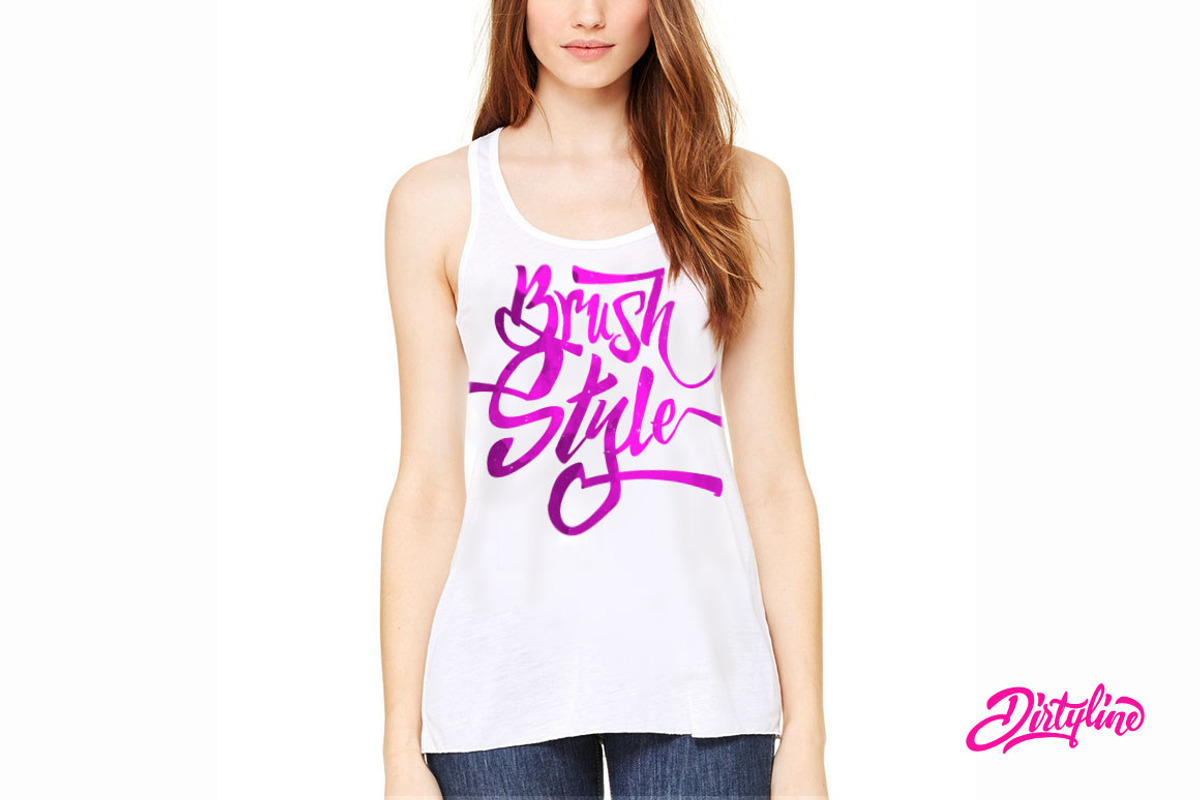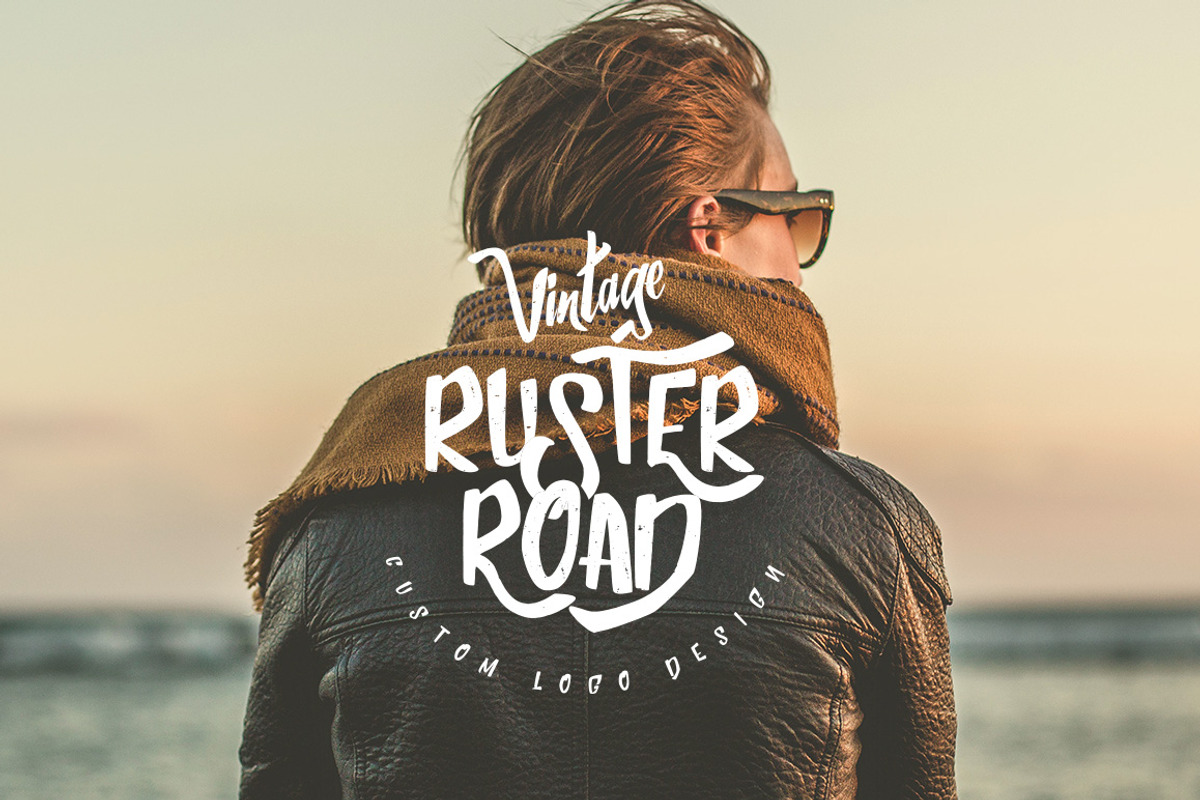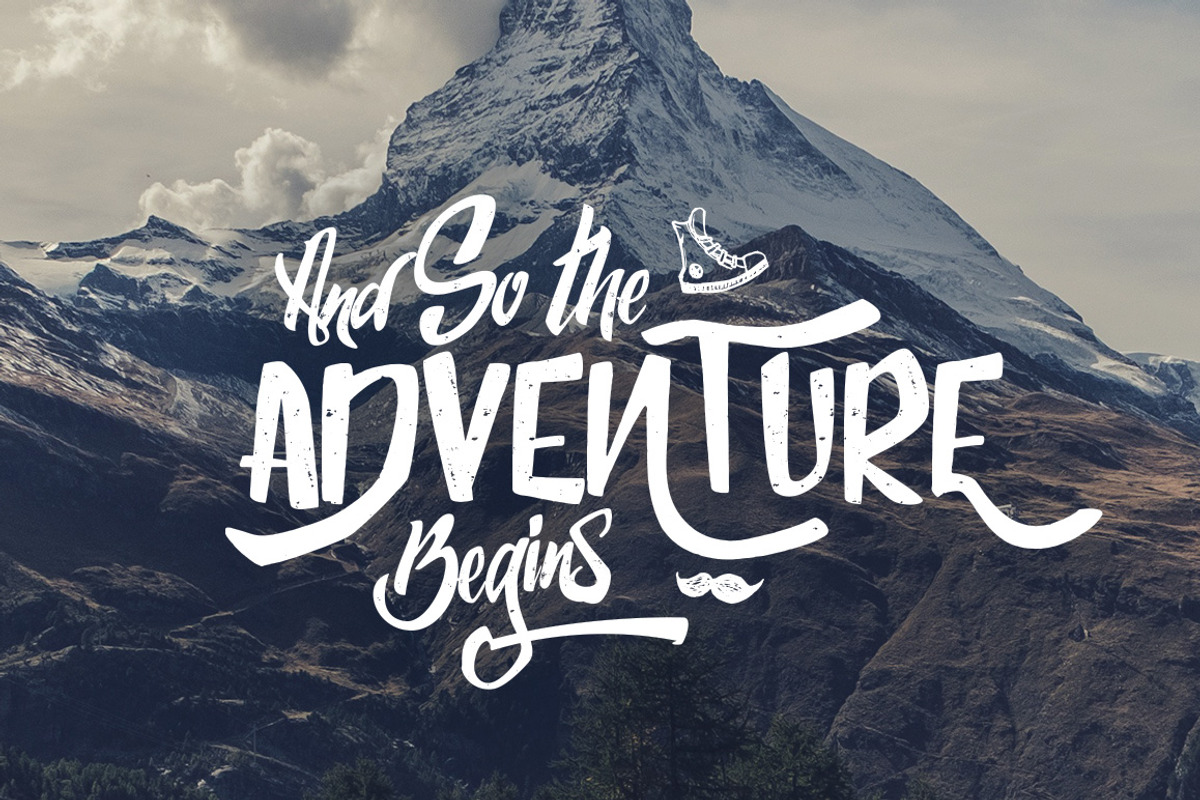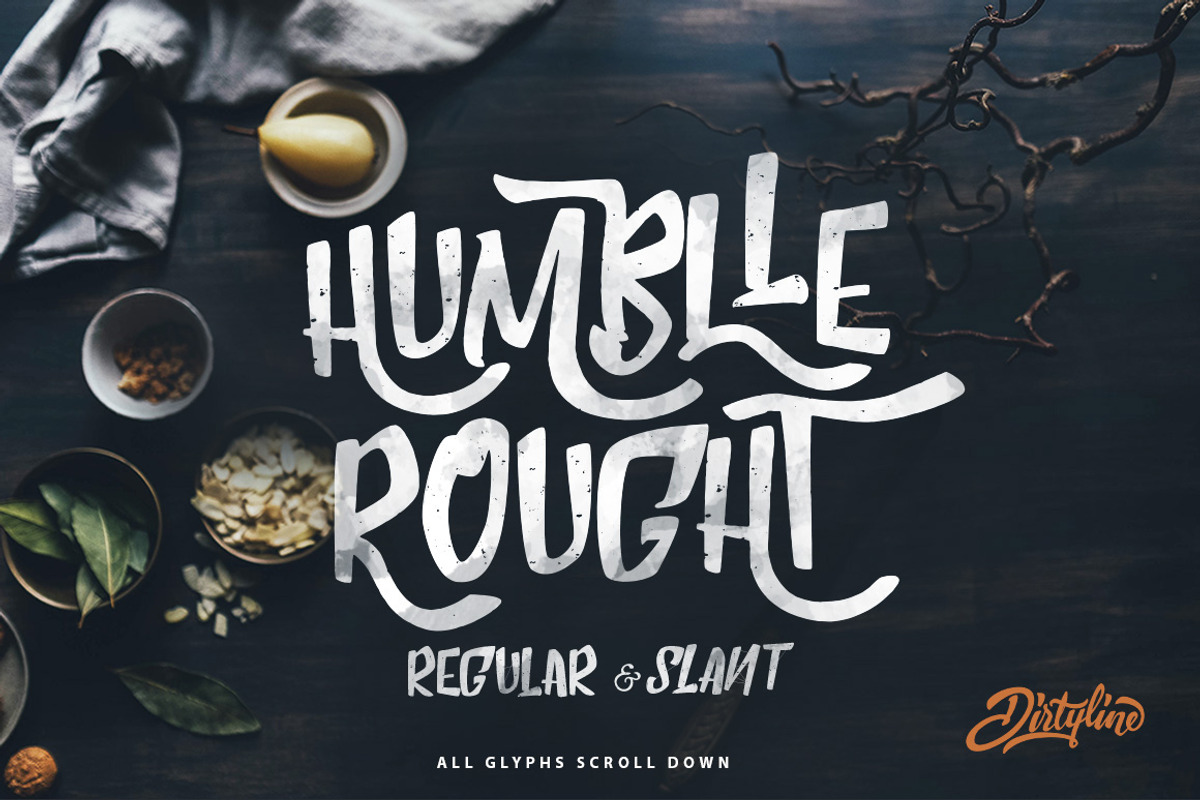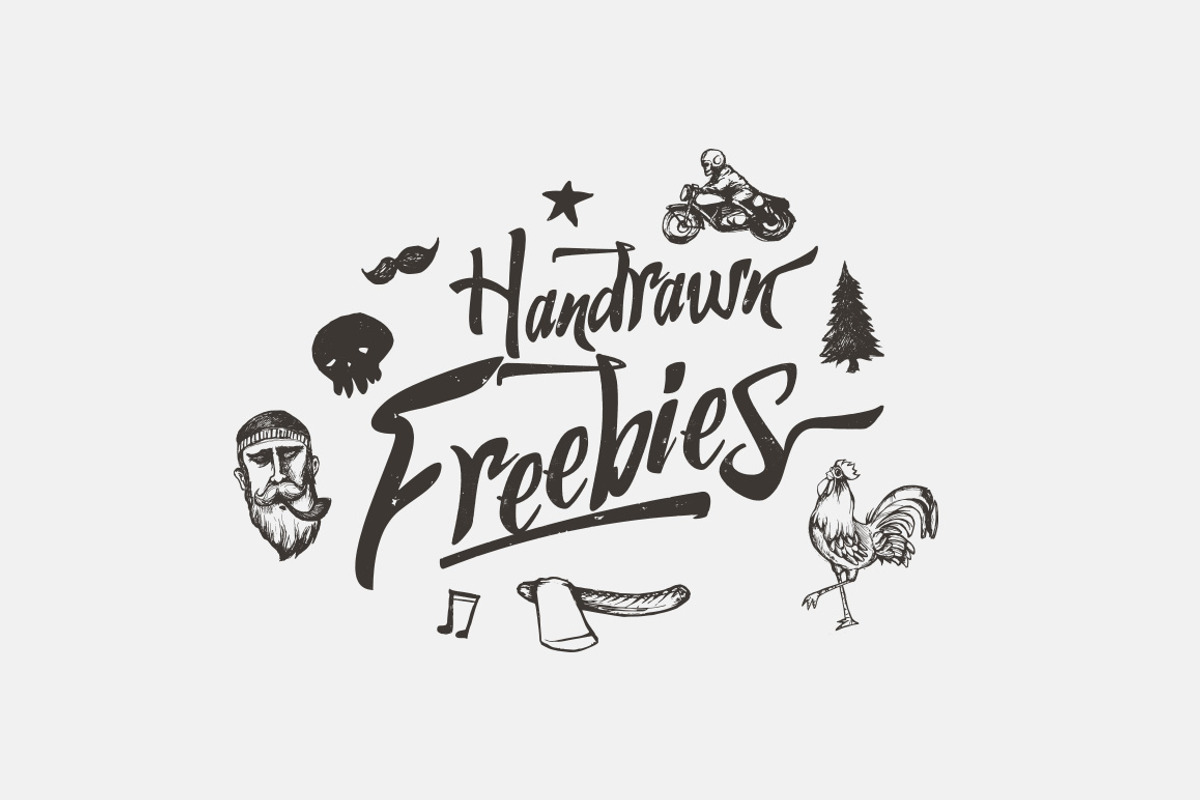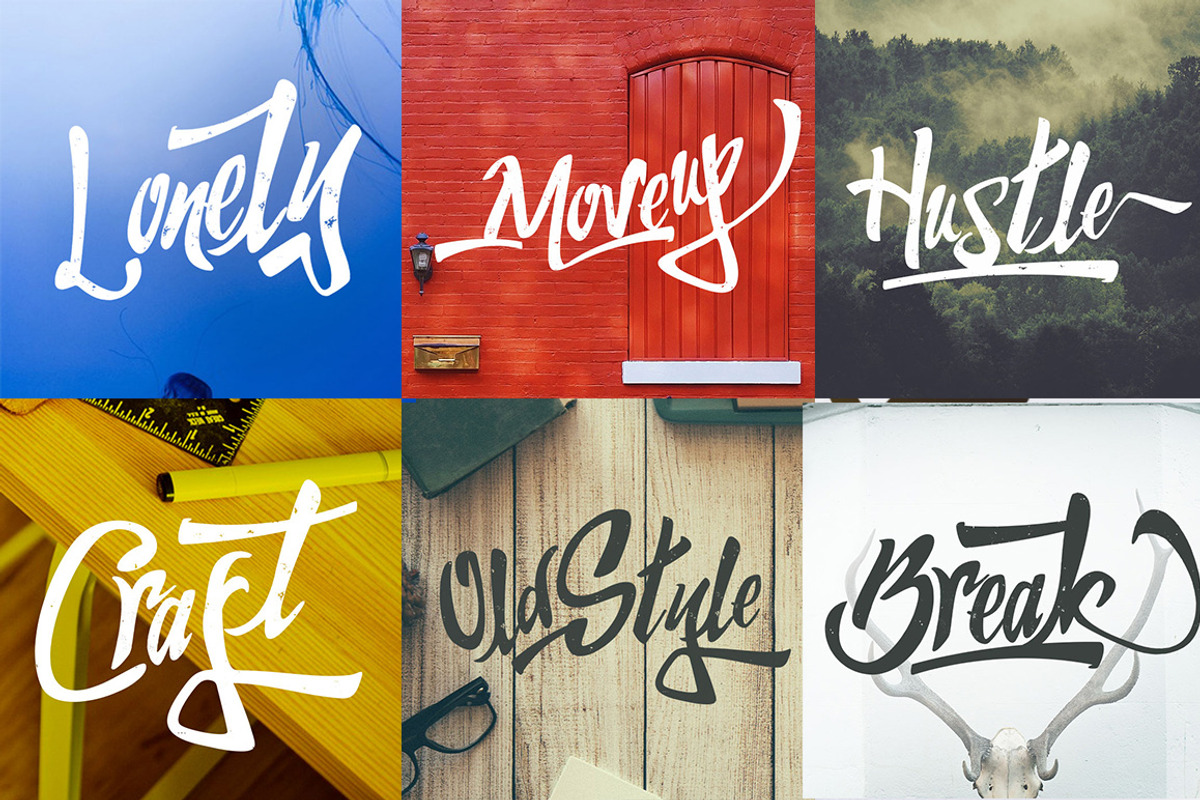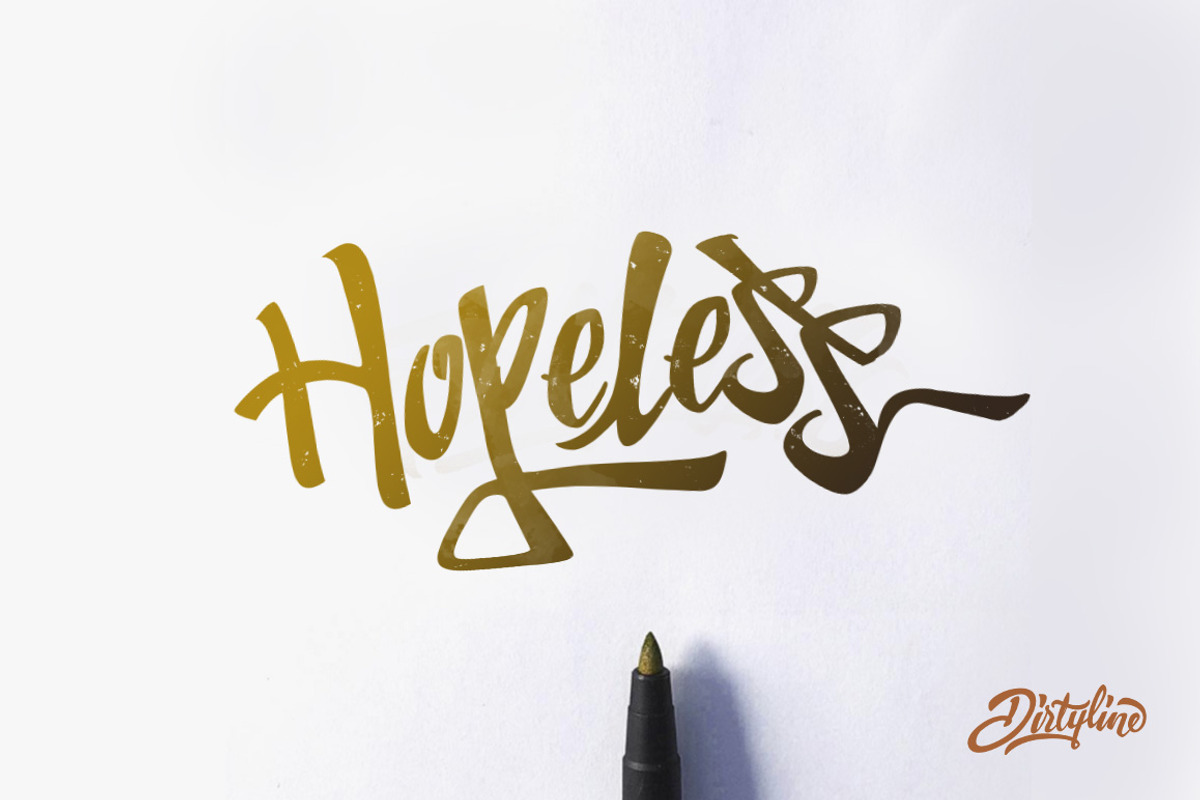
Humblle Rought - Font Duo + Extras
Humblle Rought - Font Duo + Extras by Dirtyline Studio is a font selected for branding, posters, packaging, typography.
- Initial Alternates
- Terminal Alternates
- Stylistic sets
- Basic Latin A-Z and a-z
- International Symbols Support
Why Humblle Rought - Font Duo + Extras is worth a look
Humblle Rought - Font Duo + Extras by Dirtyline Studio fits naturally into Branding, posters, packaging, typography.